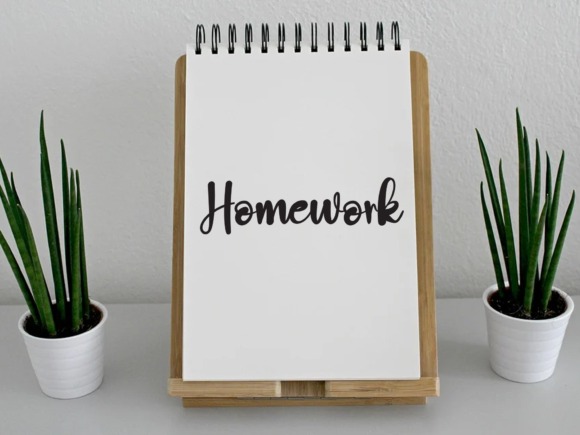
Good Day Script Font
This is a sweet handwritten font that is made with great care in order to produce the expected outcomes. This font can be used for writing various kinds of products according to their respective needs.